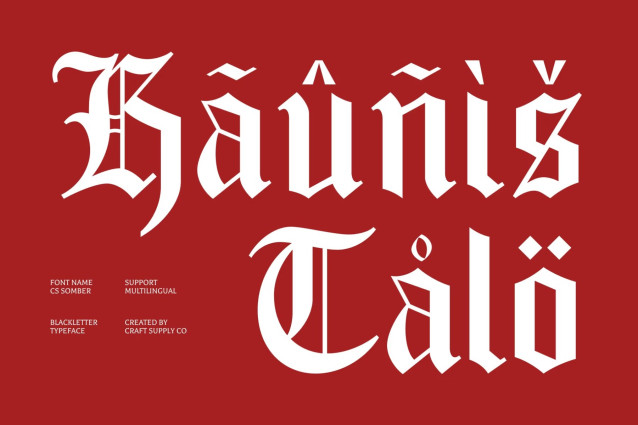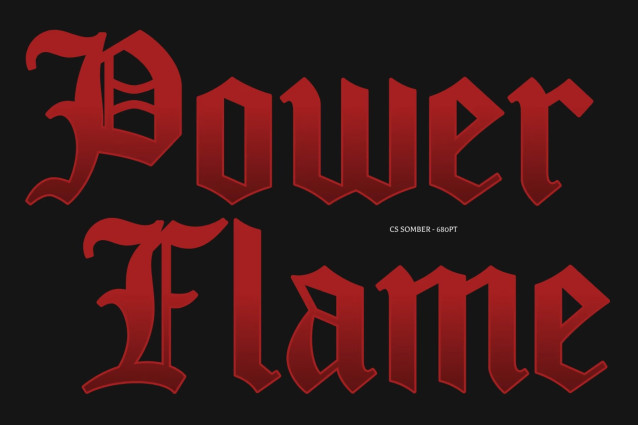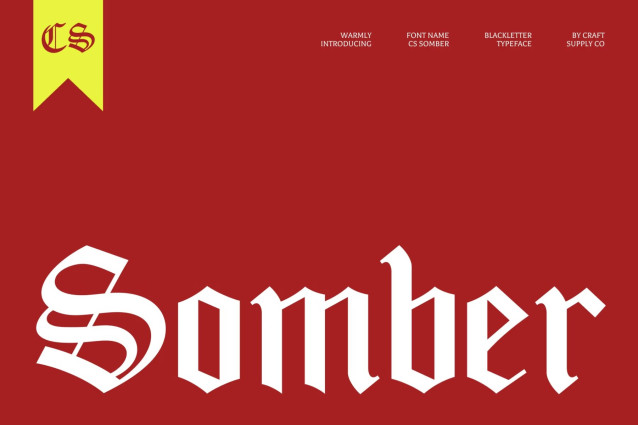
CS Somber – Classic Blackletter Display Font: Where Gothic Heritage Meets Timeless Expression
Traditional Gothic Letterforms with Bold Presence
This is a classic blackletter display font inspired by medieval calligraphy and traditional Gothic lettering. Its ornate letterforms, sharp angles, and dramatic strokes capture the rich visual heritage of historic manuscripts while delivering a commanding and unforgettable presence. Every character reflects the craftsmanship and elegance of centuries-old typographic tradition.
Historic Character Refined for Modern Design
While deeply rooted in classic Blackletter aesthetics, this font is carefully refined for contemporary use. Its balanced proportions and improved readability allow the intricate details of Gothic lettering to shine without sacrificing versatility. The result is a display font that honors historical authenticity while fitting seamlessly into modern creative projects.
Dramatic Typography with Timeless Appeal
By combining traditional Gothic forms with refined construction, that creates a distinctive visual identity that feels powerful, expressive, and enduring. Its bold personality evokes mystery, prestige, and craftsmanship, making it an ideal choice for designs that seek to leave a lasting impression through dramatic typography.